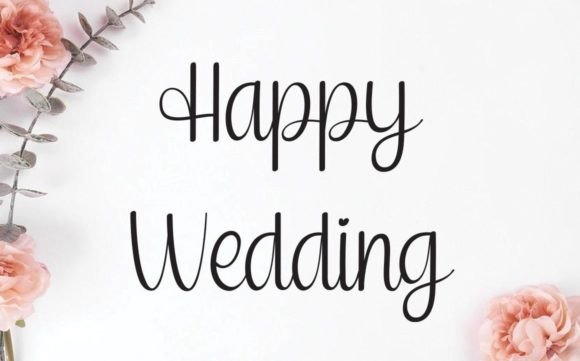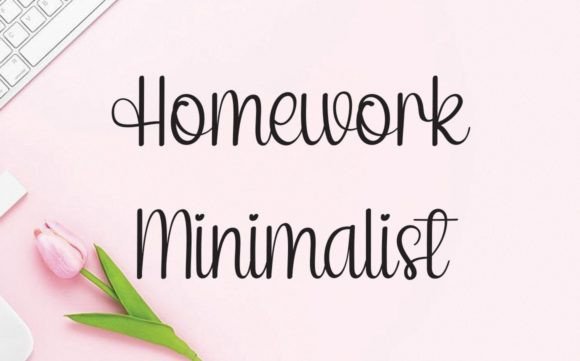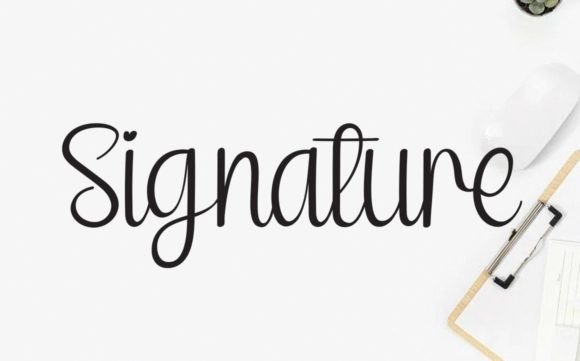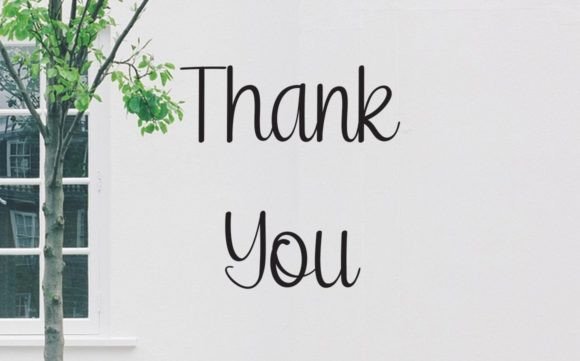
Discover the Power of Healing Font: Elevate Your Designs to New Heights
Are you tired of using the same old fonts in your designs? Look no further than the Healing Font, a cool, simple, and playful display font that’s taking the design world by storm. With its incredible versatility, Healing Font is the perfect addition to any creative project, helping to elevate your ideas to the highest levels.
What is Healing Font?
Healing Font is a modern display font that’s designed to make a statement. Its clean and simple lines make it easy to read, while its playful undertones add a touch of personality to any design. Whether you’re working on a logo, brochure, or social media post, Healing Font is the perfect choice for designers and crafters looking to add a unique touch to their work.
The Benefits of Using Healing Font
So, what makes Healing Font so special? Here are just a few benefits of using this amazing font in your designs:
- Versatility: Healing Font is incredibly versatile, making it suitable for a wide range of designs, from elegant and sophisticated to fun and playful.
- Readability: With its clean lines and simple design, Healing Font is easy to read, even at small sizes.
- Personality: Healing Font has a playful undertones that add a touch of personality to any design, helping to make your work stand out from the crowd.
How to Use Healing Font in Your Designs
Healing Font is perfect for a wide range of design projects, including:
- Logos: Use Healing Font to create a unique and memorable logo that reflects your brand’s personality.
- Brochures: Add a touch of elegance and sophistication to your brochures with Healing Font.
- Social media posts: Use Healing Font to add a playful touch to your social media posts and make them stand out from the crowd.
- Signs: Healing Font is perfect for signs, whether you’re creating a sign for a business, event, or exhibition.
Tips for Getting the Most Out of Healing Font
Here are a few tips for getting the most out of Healing Font:
- Experiment with different sizes: Healing Font looks great at a range of sizes, from small and delicate to large and bold.
- Play with colors: Healing Font works well with a range of colors, so don’t be afraid to experiment and find the perfect combination for your design.
- Combine with other fonts: Healing Font pairs well with a range of other fonts, so try combining it with other fonts to create a unique and interesting effect.
In conclusion, Healing Font is a powerful and versatile font that’s perfect for designers and crafters looking to elevate their designs to new heights. With its clean lines, simple design, and playful undertones, Healing Font is the perfect choice for a wide range of design projects. So why wait? Add Healing Font to your favorite creative ideas and notice how it makes them come alive!